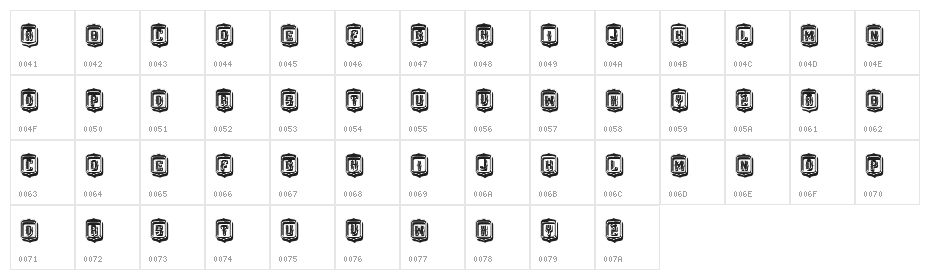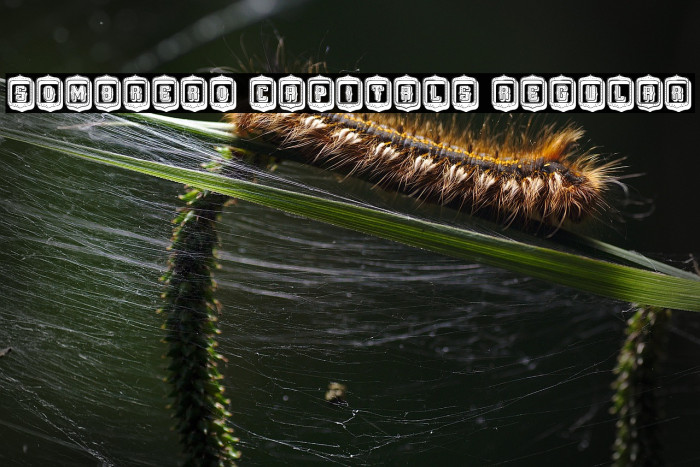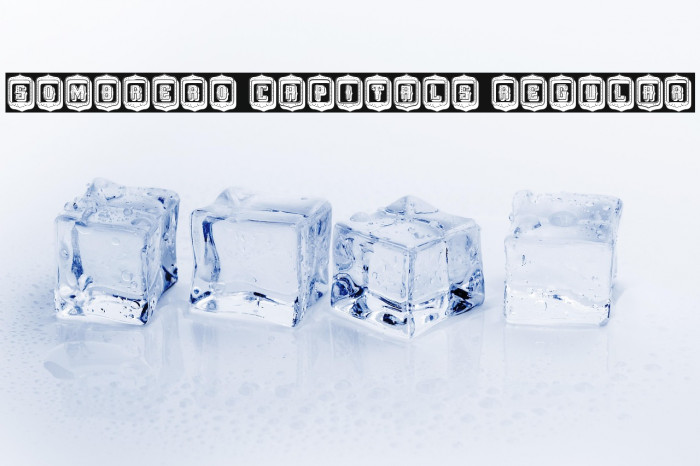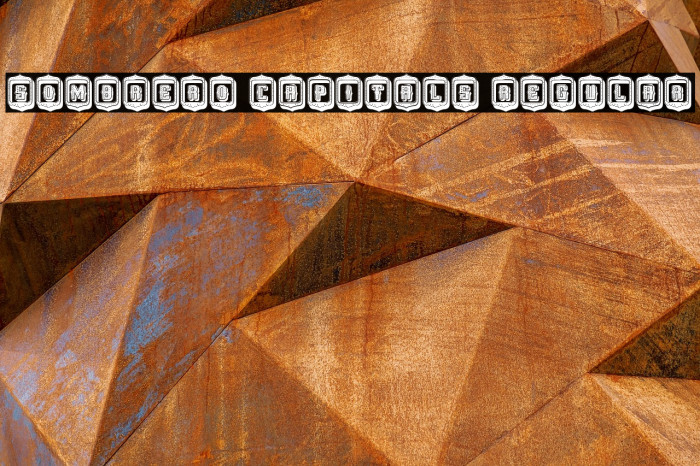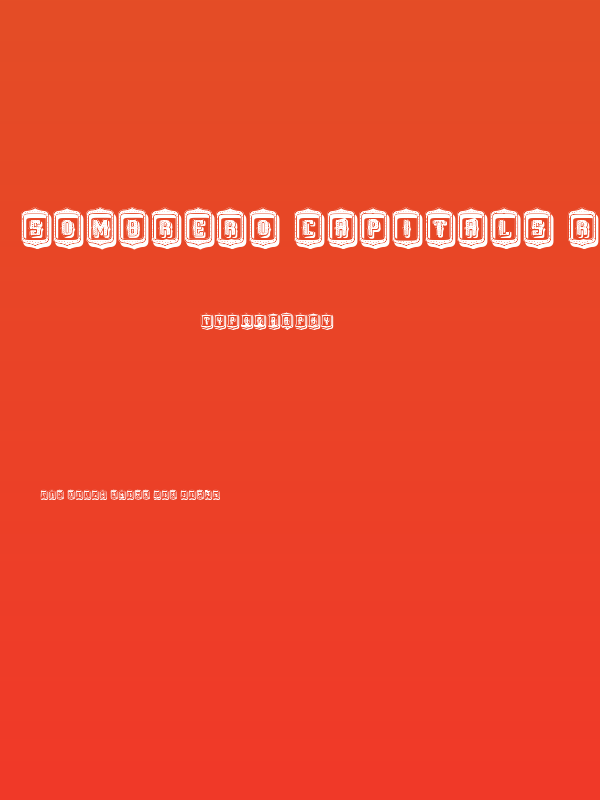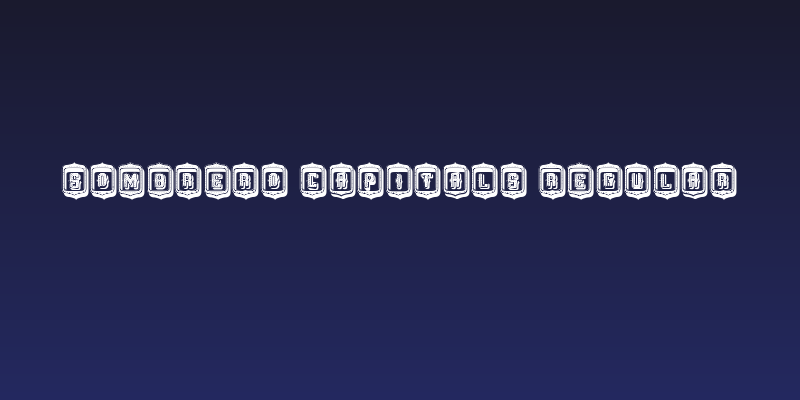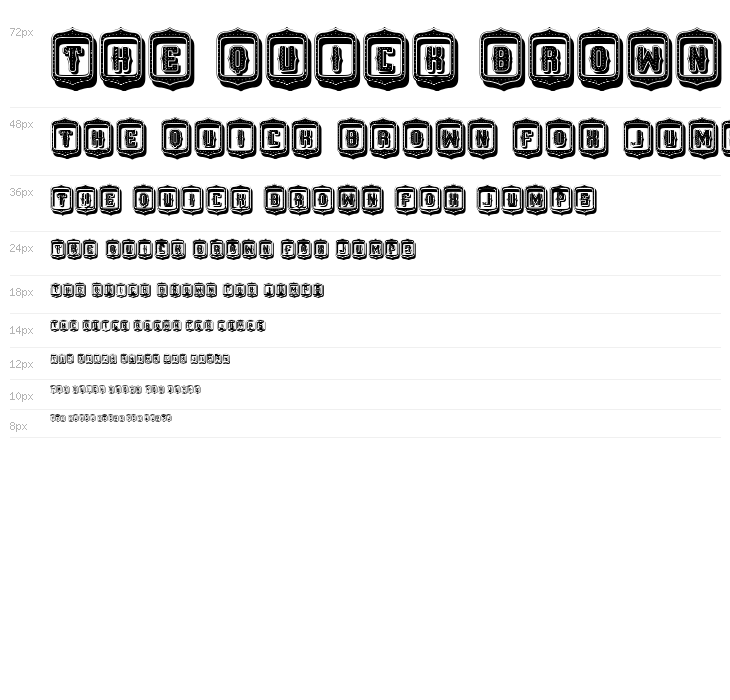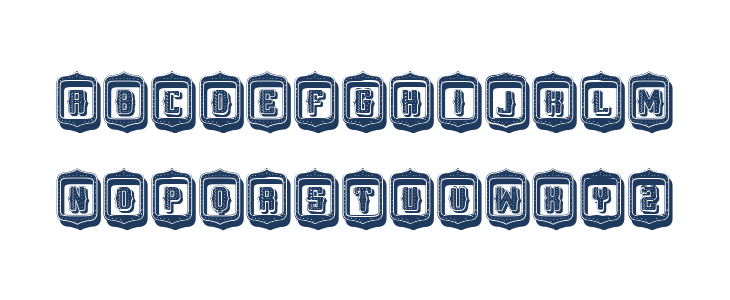
Sombrero Capitals Regular Font
Sombrero Capitals Regular Description
This font features a bold, decorative style with each letter encased in a unique, ornate border. The characters are uppercase and exhibit a vintage, Western-inspired aesthetic. The intricate design of each letter is complemented by a shadow effect, adding depth and dimension. The font's distinct appearance makes it ideal for creating eye-catching headlines or titles. Its elaborate style is reminiscent of old signage or posters, evoking a sense of nostalgia and charm.
| Proposed Projects | Ideal for vintage-themed posters, signage, branding, and event invitations. |